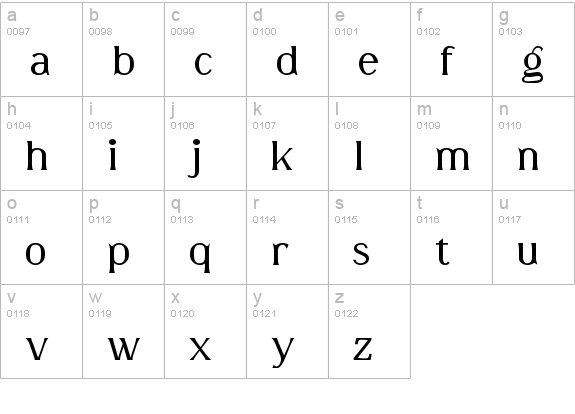
DavidFarewell Font Details
DavidFarewell font is a stunning display font that exudes elegance and sophistication. Its sleek lines and intricate details make it perfect for adding a touch of class to any design project. Whether you're creating invitations, logos, or branding materials, DavidFarewell font will make your text stand out. What sets DavidFarewell font apart is not only its beauty but also its versatility. It can be used for both formal and creative projects, making it a must-have for any designer's toolkit. The font's timeless appeal ensures that your designs will remain stylish and relevant for years to come. Best of all, DavidFarewell font is completely free to download at FontsMarket.com. This means that you can start using this gorgeous font in your projects right away without any cost. Don't miss out on the opportunity to elevate your designs with the exquisite DavidFarewell font. Download it today and let your creativity shine!